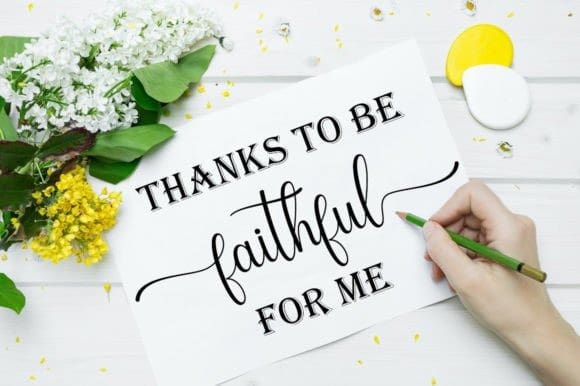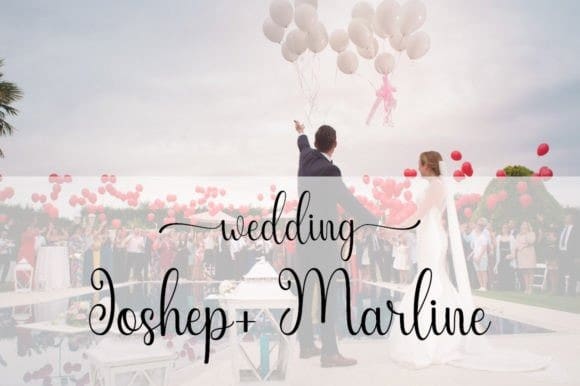
Katrine Script Typeface
Katrine Script Typeface, is a romantic and sweet calligraphy typeface with characters that dance along the baseline. It looks stunning on wedding invitations, thank you cards, quotes, greeting cards, logos, business cards, and every other design which needs a handwritten touch. This font is PUA encoded which means you can access all of the glyphs and swashes with ease!